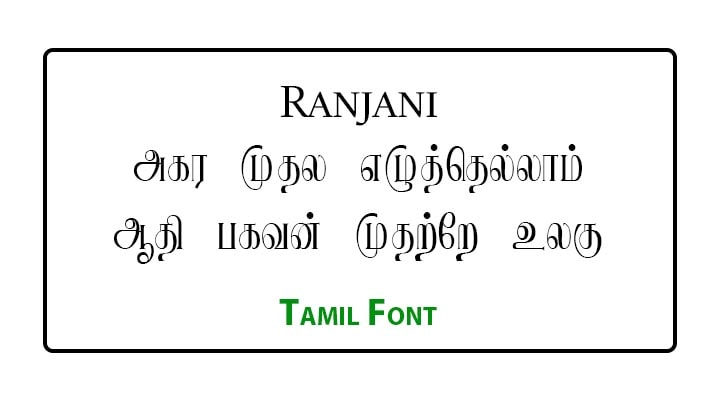
Ranjani Tamil Font Download
Ranjani Tamil Font Free Download. Ranjani is one of the Tamil Stylish Font. Specially used in publications. Here you can download Font and Keyboard Layout for Free. This font is widely used by Tamil Nadu and Sri Lankan Tamil Peoples. The following font was design and generated by by Fontograpgher 3.5.
Ranjani Tamil Font Preview